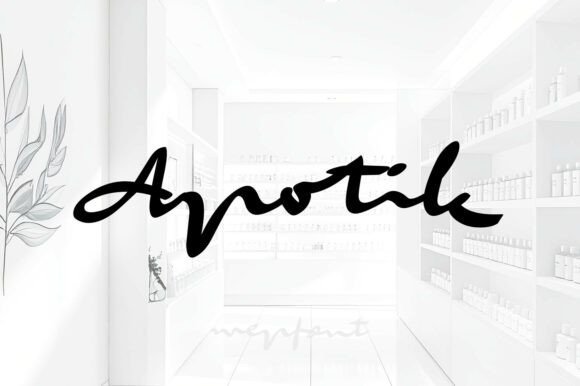
Discovering the Perfect Prescription for Your Design
As a designer, have you ever found yourself searching for the perfect font to capture the essence of your brand? Maybe you’re working on a project for a modern pharmacy or a wellness brand, and you want your message to convey warmth and trustworthiness. That’s where the Apotik Font comes in – a beautifully crafted, playful, and modern script font designed to bring a human touch to your designs.
The Apotik Font is more than just a font; it’s a way to connect with your audience on a deeper level. Its flowing, handwritten letterforms and relaxed brushstroke style make it stand out in a sophisticated yet friendly way. Whether you’re creating logos, packaging, or social media content, the Apotik Font is the perfect prescription for your design needs.
Apotik Font Key Features
- Unique Characteristics: Apotik Font features a distinctive, modern design with a unique blend of geometric and organic elements, making it ideal for creative and innovative projects.
Apotik Font Review
Overall, I was quite excited to try out the Apotik font. Here’s my honest take on its strengths and weaknesses:
- Unique aesthetic: The Apotik font has a distinct, quirky feel that can add a touch of personality to your designs.
- Good for titles and headings: Its bold, eye-catching style makes it perfect for use in titles, headings, and other prominent text elements.
- Wide character set: The font includes a wide range of characters, including international symbols and punctuation marks.
- Limited legibility: While the font looks great in large sizes, it can be difficult to read at smaller sizes, making it less suitable for body text.
- No bold or italic styles: The font only comes in regular weight, which can limit its versatility in certain design situations.
- May not be suitable for long blocks of text: Due to its unique style, the Apotik font can be tiring to read in large quantities.
Overall, the Apotik font is a great choice for designers looking to add a bit of flair to their titles, headings, and other prominent text elements. However, it may not be the best choice for body text or situations where legibility is a top priority.
Apotik Font is a versatile font that can be used for a variety of applications, including:
1. Branding and logos
2. Headings and titles
3. Menus and navigation
For optimal use, it’s recommended to use Apotik Font in combination with other fonts to create a balanced and visually appealing design.
Alternatives to Apotik Font
Montserrat is a sans-serif font designed by Julieta Ulanovsky. It is a clean and modern font perfect for digital use. Montserrat is ideal for titles and headings where you want to convey a sense of professionalism and sleekness.
Compared to Apotik Font, Montserrat has a more geometric and modern feel, making it suitable for a wide range of applications, from branding to digital interfaces. While Apotik Font has a more playful and hand-drawn feel, Montserrat is more versatile and widely used.